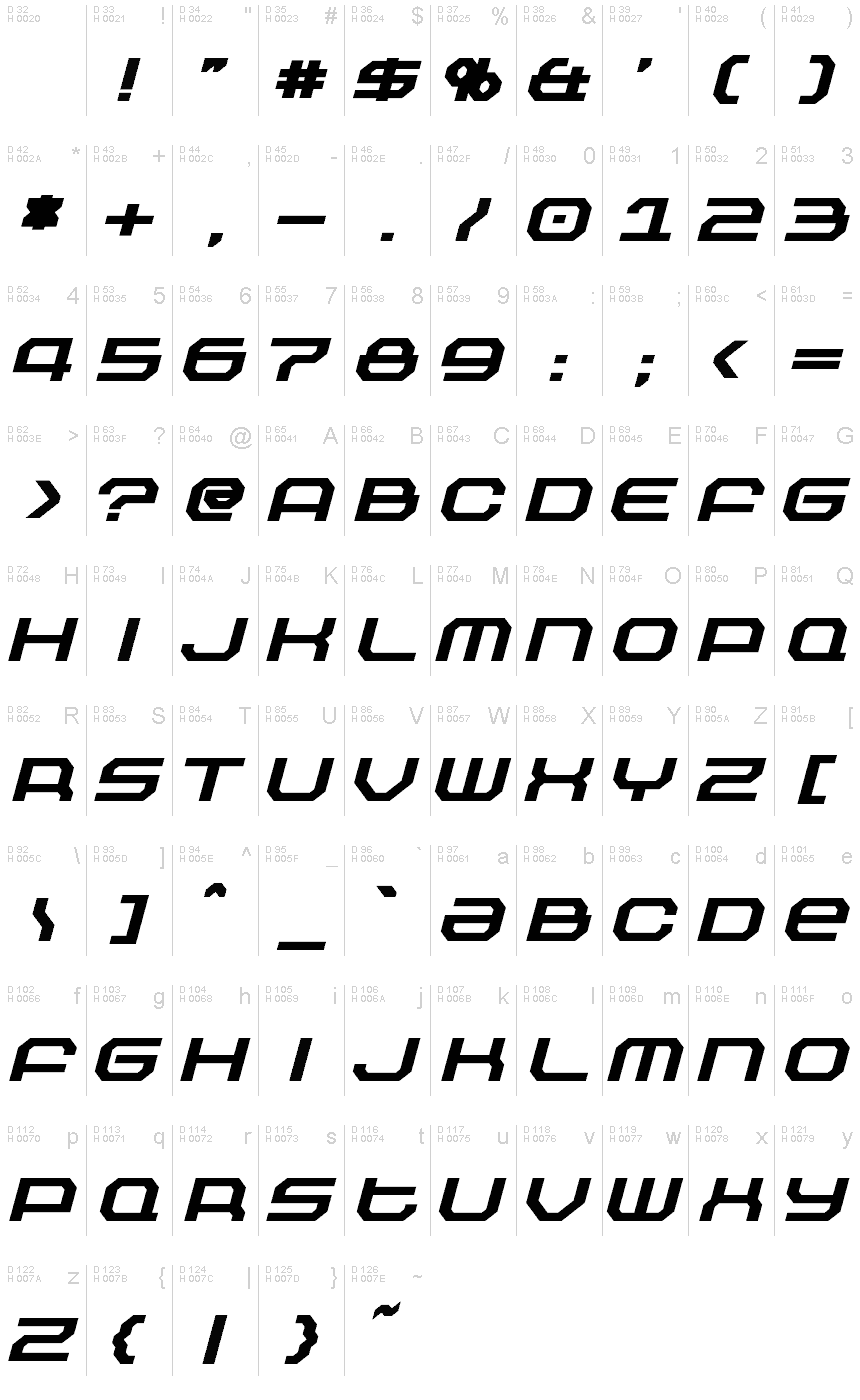
Outland Black Italic
Outland Black Italic is a striking, techno-inspired font that draws inspiration from the corporate and naval signage of Sean Connery's 1980s sci-fi classic, Outland. Featuring an expanded, bold silhouette and a distinct italicized slant, this font exudes a powerful, futuristic aesthetic. Its clean, angular letterforms and extended punctuation set it apart as an impactful choice for display purposes, lending an air of authority and technological sophistication to a wide range of design applications, from branding and packaging to editorial layouts and media titling.
The font's expansive character set, including regular, italic, bold, bold-italic, black, and black-italic weights, provides designers with ample versatility to craft visually compelling compositions. Outland Black Italic's seamless integration of both practical and stylistic elements makes it a versatile tool for designers seeking to evoke a sense of retro-futurism or convey a bold, cutting-edge aesthetic.